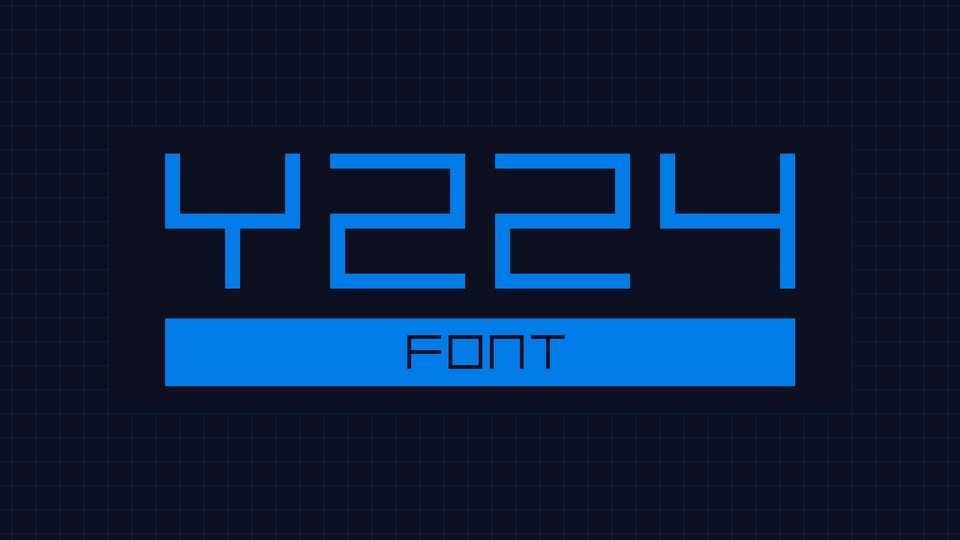
Download Y224 font, a bold monospace display typeface with perfectly square letterforms and a distinct sci-fi vibe. Its uniform spacing and geometric precision create a futuristic aesthetic.